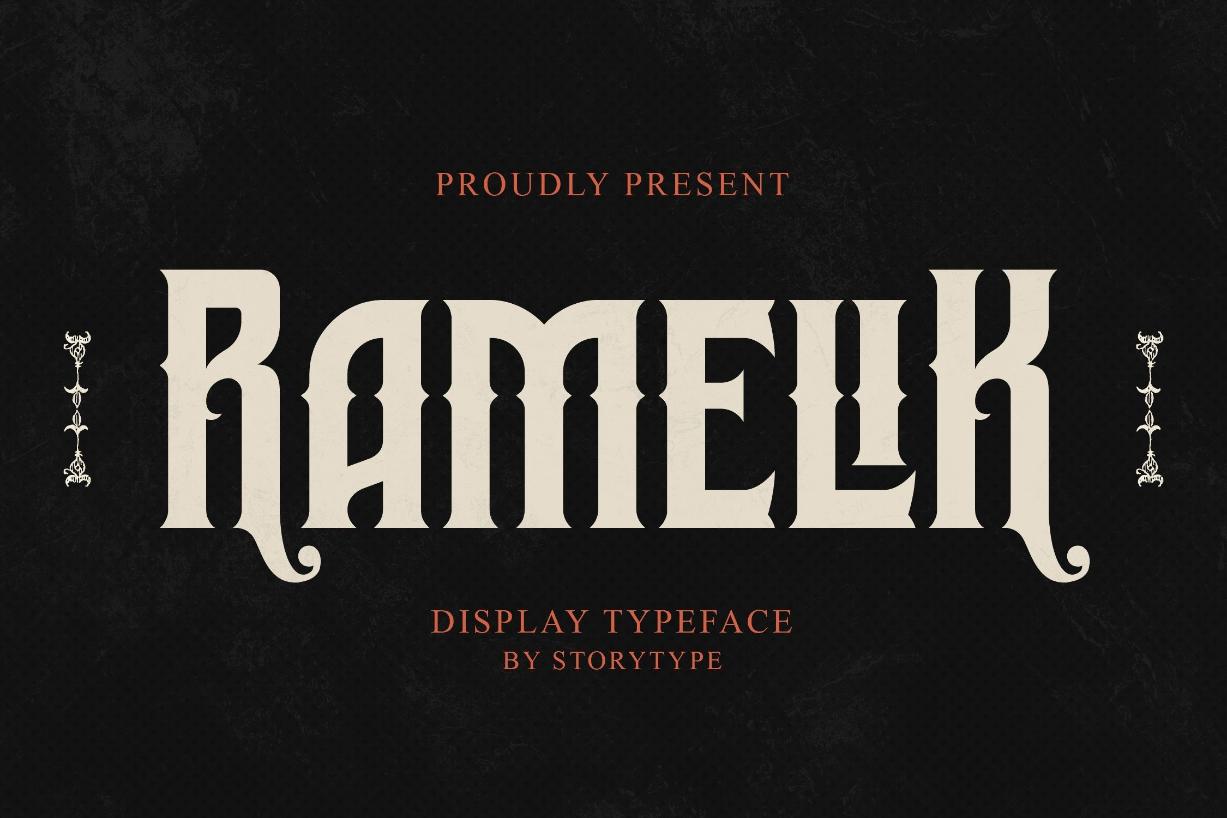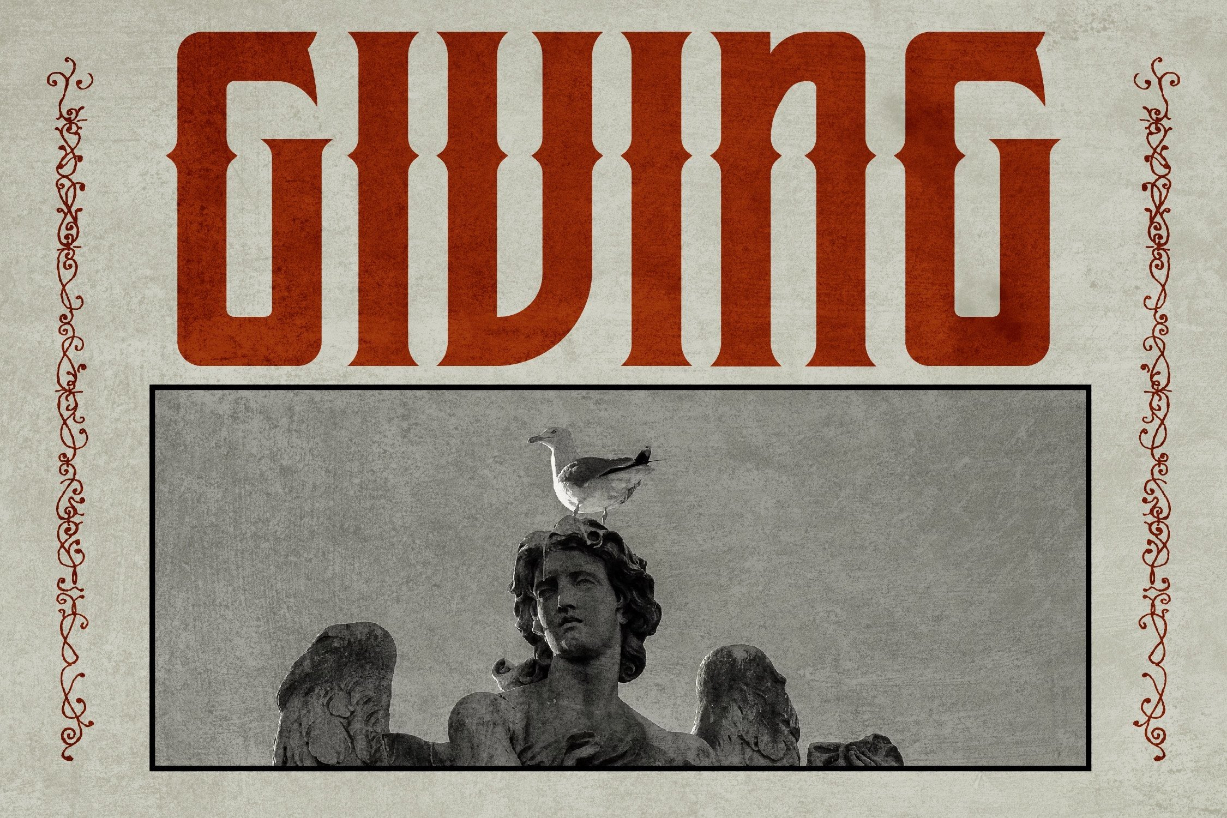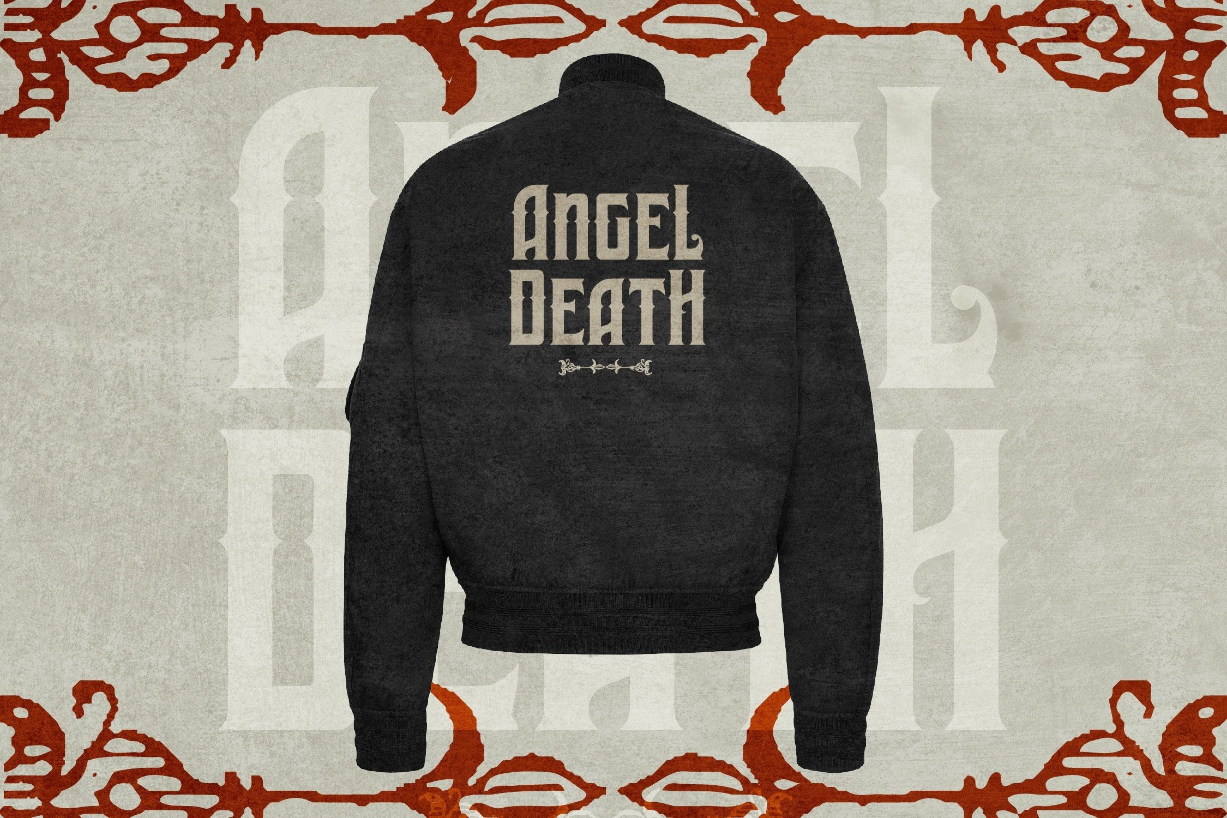
About Ramelik Font
Proudly present Ramelik, a modern and classy blackletter font that has a unique style and modern look.
This typeface is perfect for an elegant & luxury logo, book or movie title design, fashion brand, magazine, clothes, lettering, quotes, and so much more.